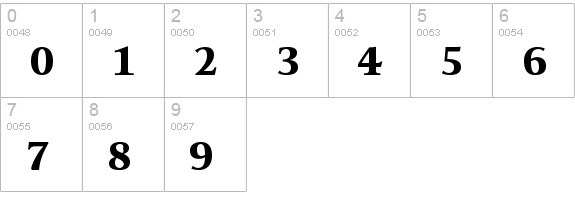
Mentor Std Black Font Details
Mentor Std Black is a maximum-weight, dramatic variant in the Mentor typeface family \xE2\x80\x94 well suited to maximum-impact headlines, posters, and packaging.
Mentor Std Black font is a modern and versatile typeface that exudes sophistication and elegance. With its bold and strong appearance, this font is perfect for making a statement in your designs. Whether you are creating branding materials, brochures, posters, or websites, Mentor Std Black font will elevate your projects to the next level. What's even better is that Mentor Std Black font is available for free! You can easily download this stylish font at FontsMarket.com and start using it in your projects right away. Don't miss out on the opportunity to add this sleek and professional font to your font collection. Download Mentor Std Black font today and take your designs to new heights!